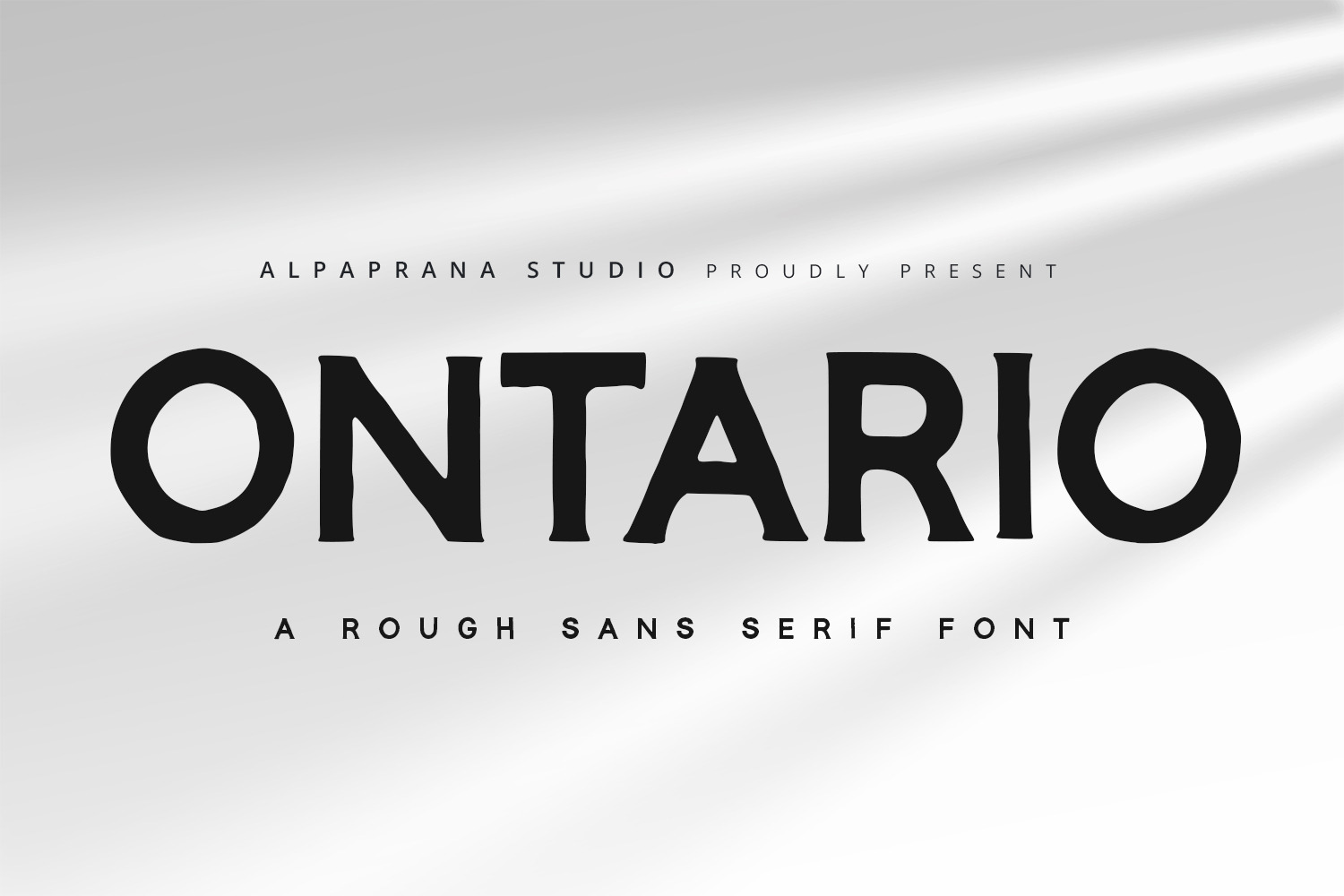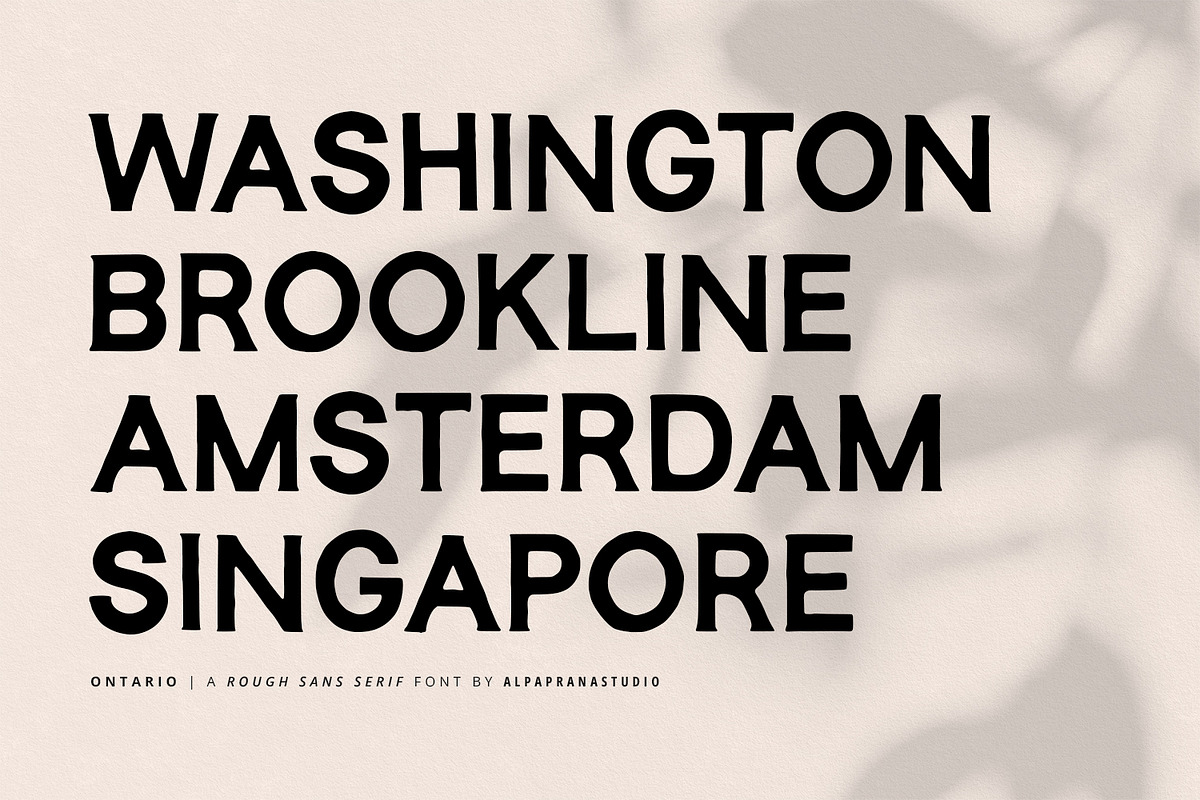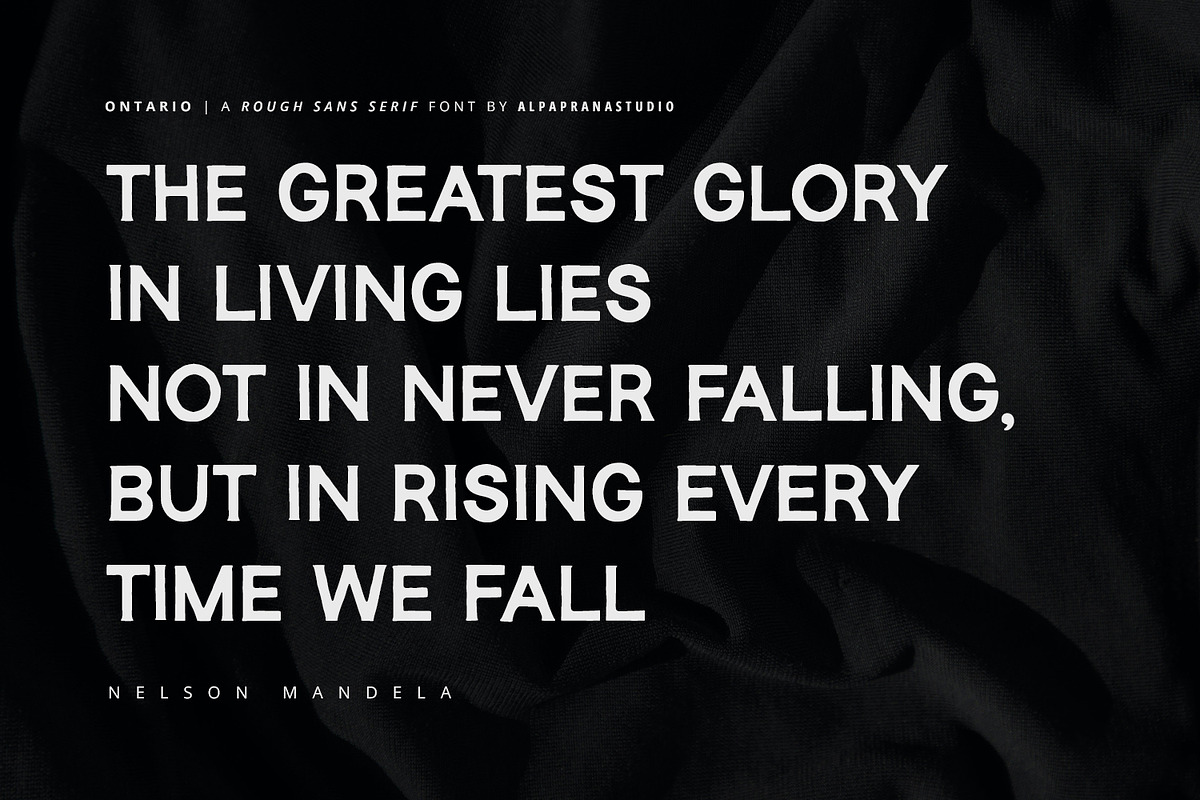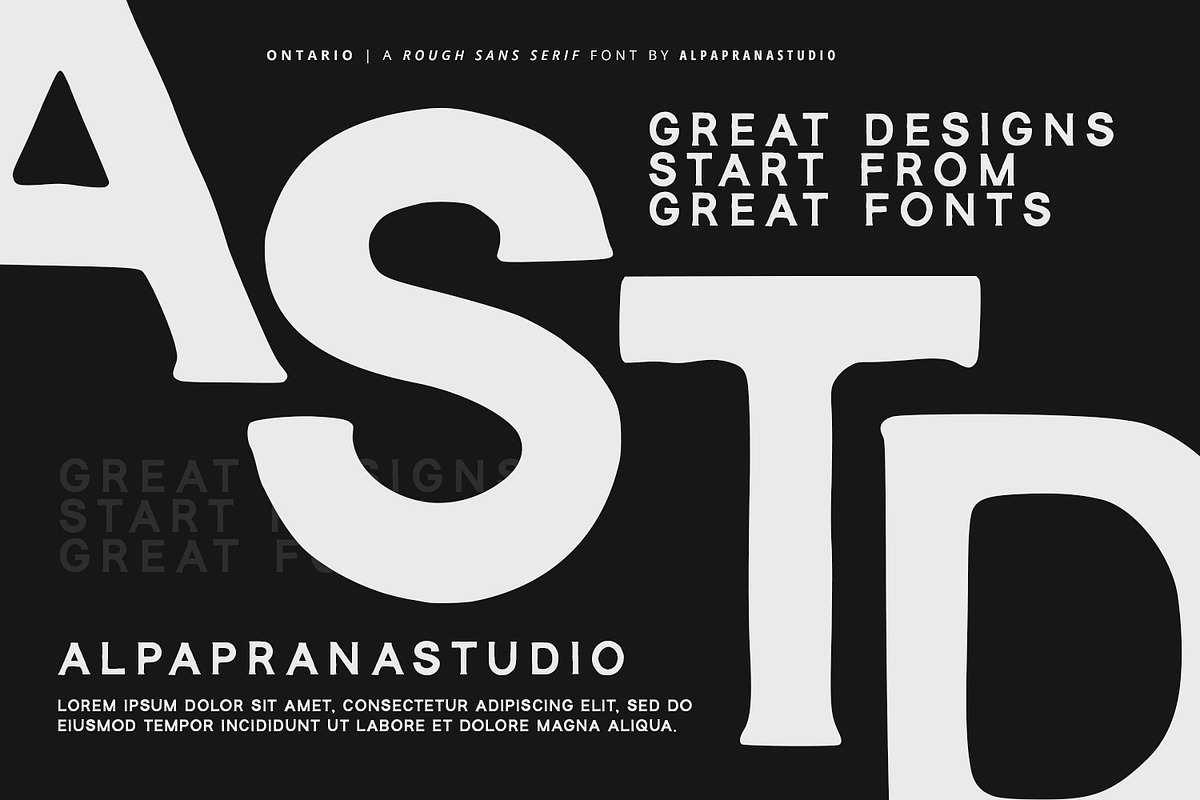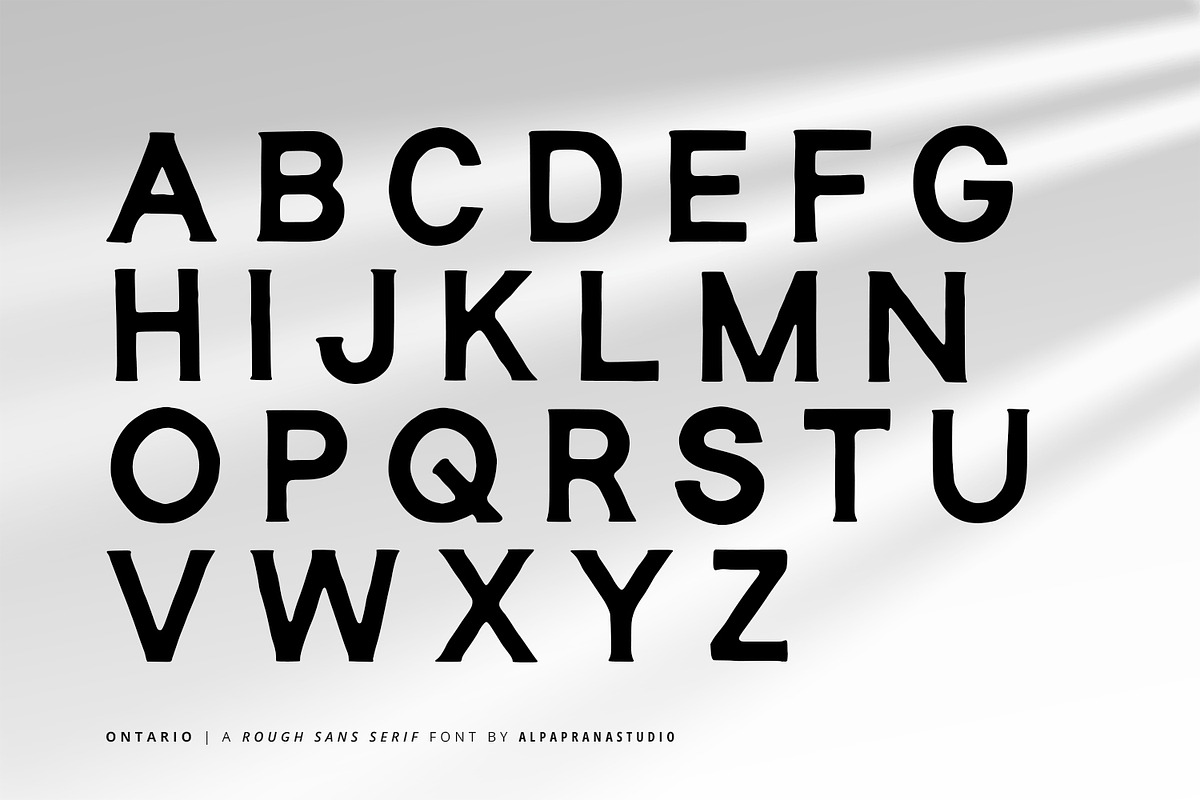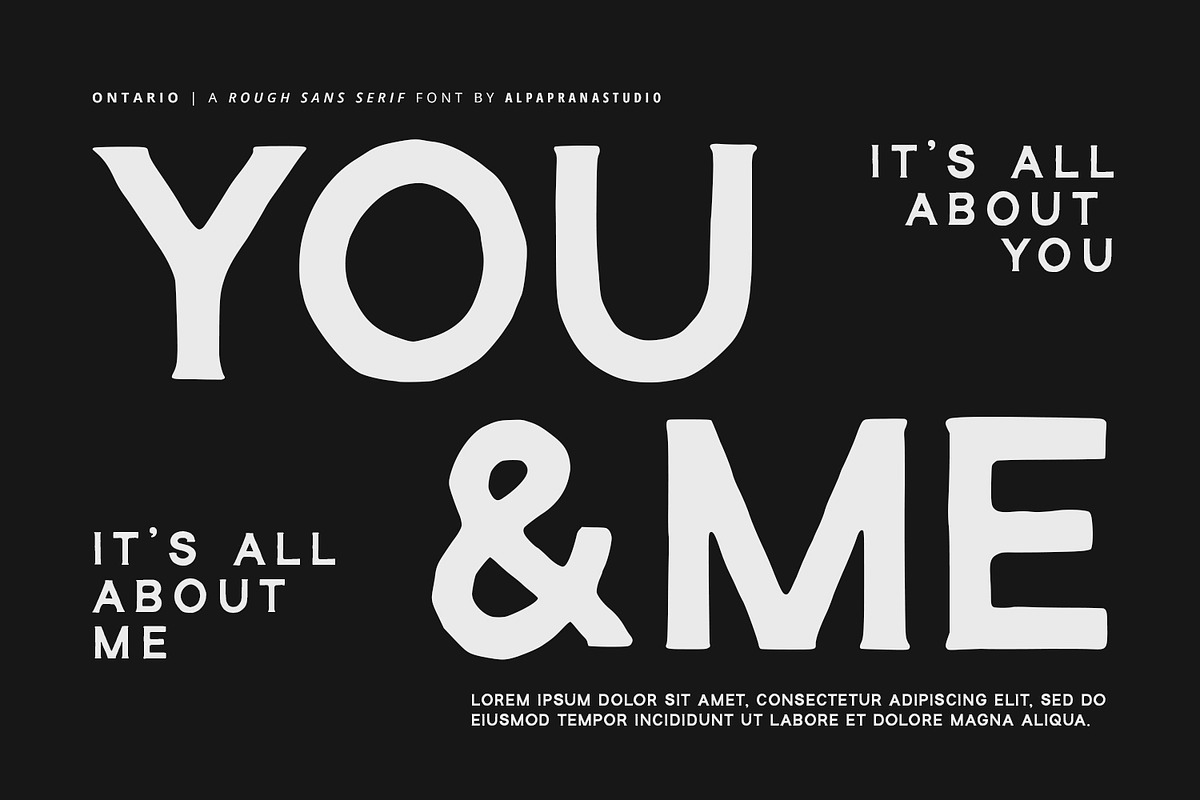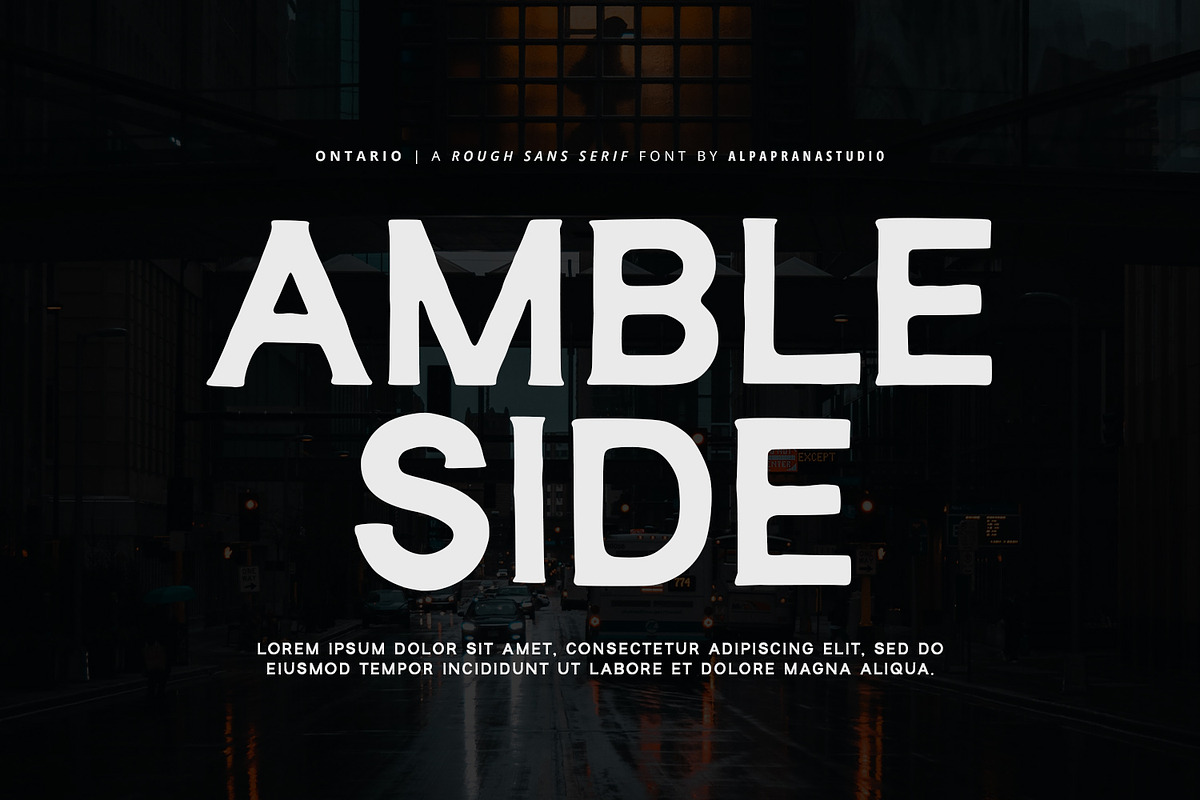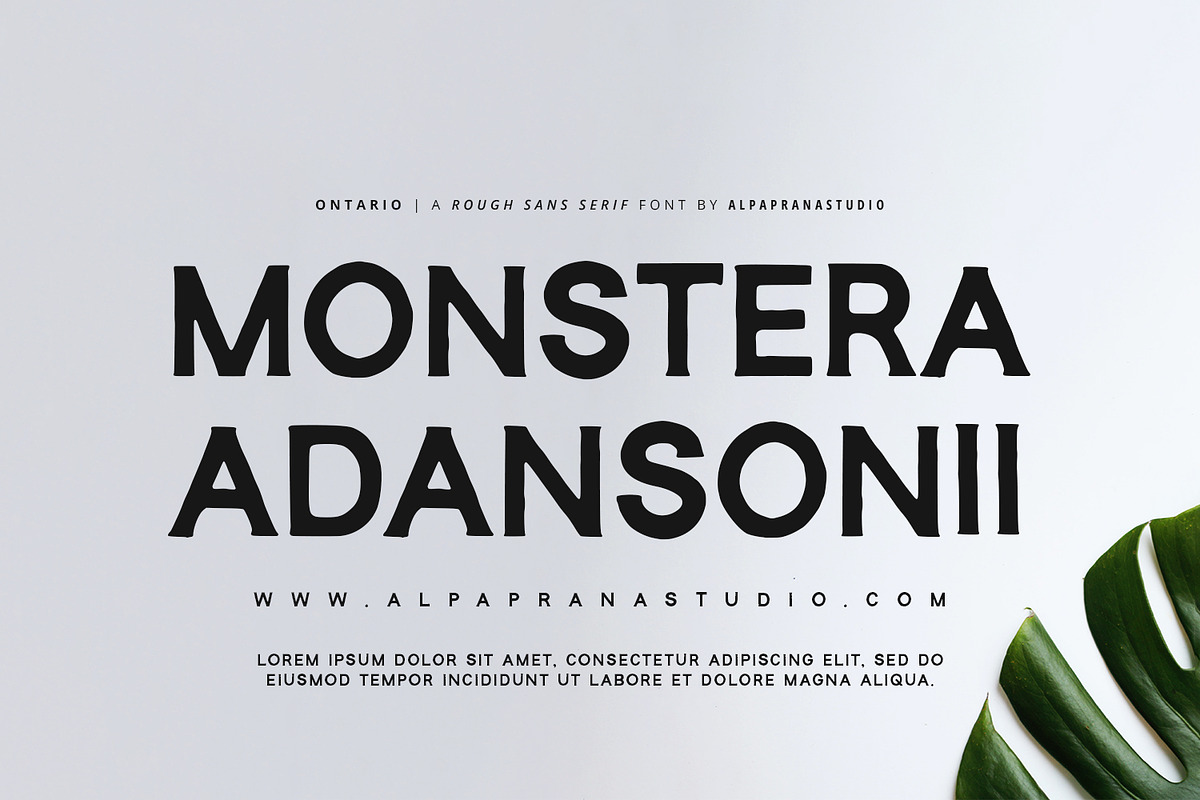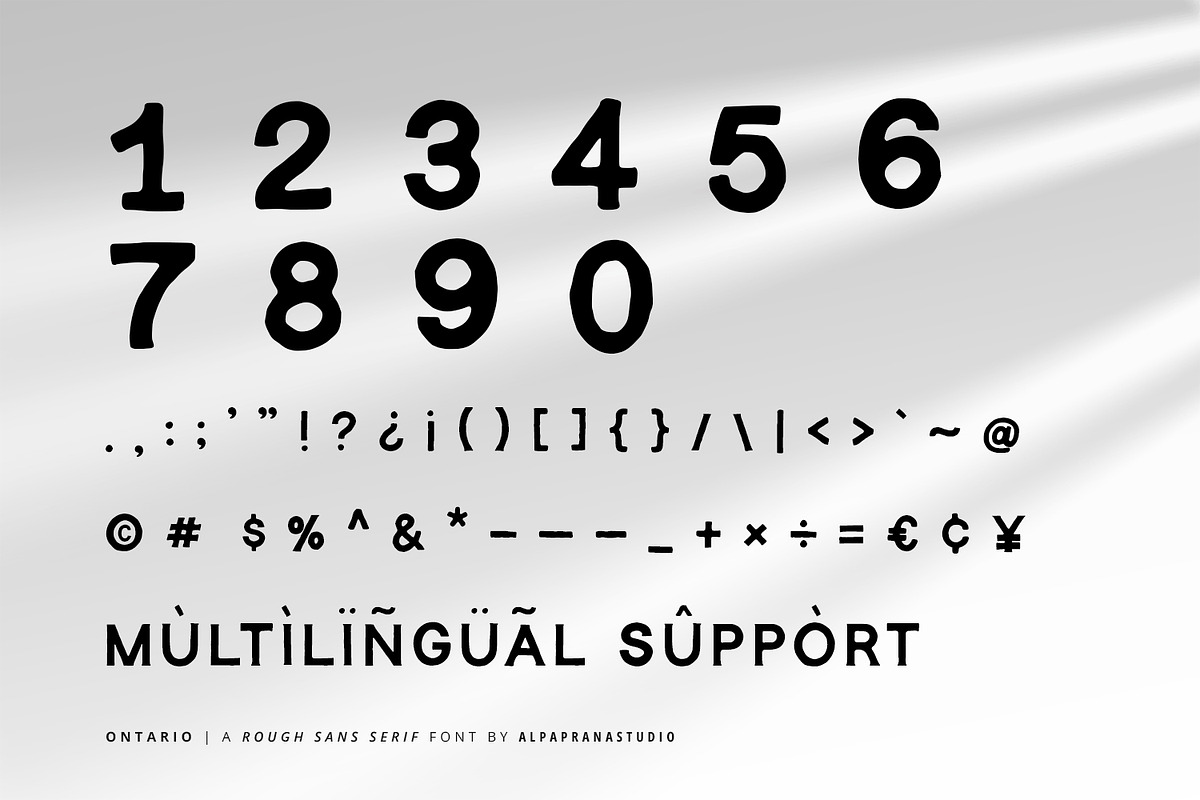
Ontario - Rough Sans Font
Ontario is a rough sans font with retro modern feels. It will be perfectly used for Branding, Logo Design, Lettering, Logotype, Clothing, Poster, magazine, packaging, posters, shopping bags, t-shirts, book covers, photography, special events and other design project.